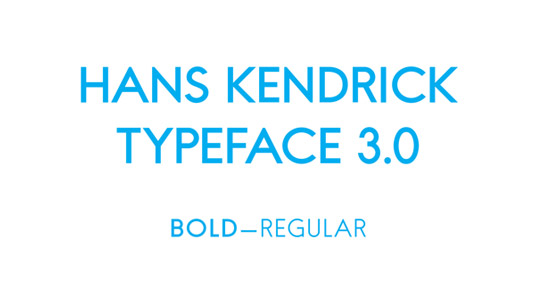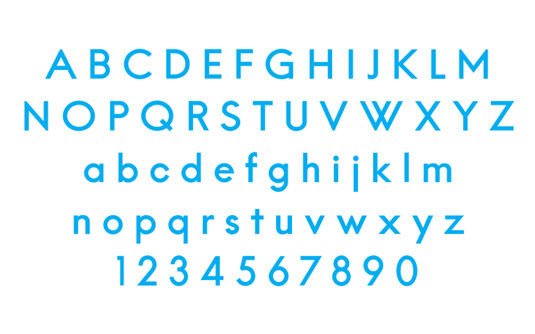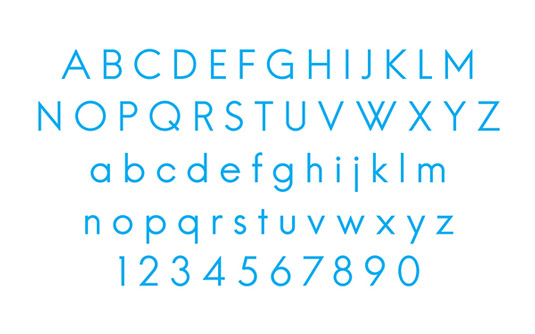
Font of the day: Hans Kendrick
Hans Kendrick by Alfredo Marco Pradil
Today's font of choice is Hans Kendrick by creative designer Alfredo Marco Pradil. Described as a "geometric grotesk typeface", Hans Kendrick is available in regular and bold, both of which are great for headlines, logos, posters and more.